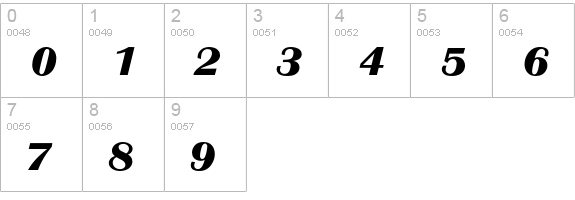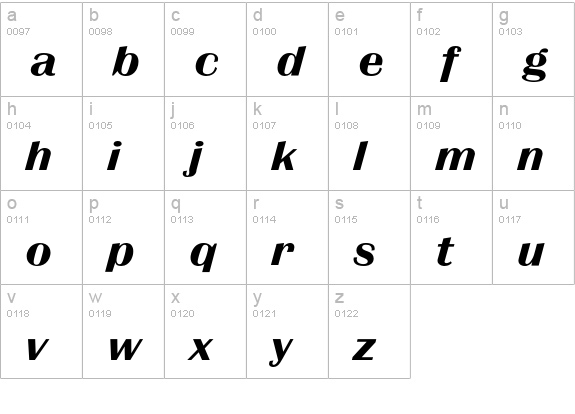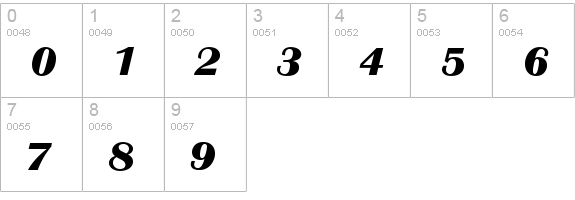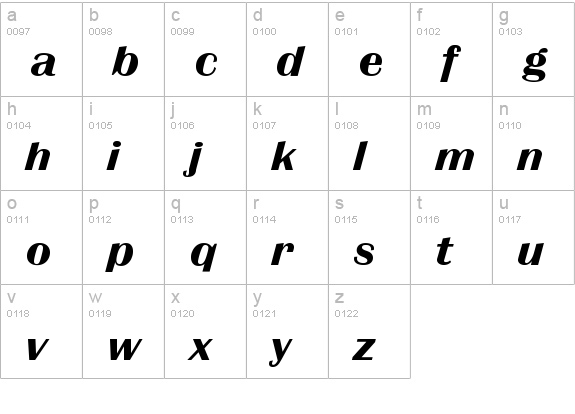
Britannic Bold Italic is a strong, high-contrast, italic variant in the Britannic typeface family \xE2\x80\x94 well suited to headlines, attention-grabbing titles, and strong calls-to-action.
Britannic Bold Italic is a striking and versatile font that exudes confidence and elegance. With its bold weight and stylish italic slant, this typeface is perfect for making a bold statement in any design project. Whether you are creating a modern logo, designing eye-catching posters, or crafting sleek branding materials, Britannic Bold Italic is sure to grab attention and leave a lasting impression. What's even better is that Britannic Bold Italic is available for free download at FontsMarket.com. Now, you can easily access this premium font without any cost, making it a valuable addition to your font collection. Don't miss out on the opportunity to elevate your designs with the timeless appeal of Britannic Bold Italic - download it today and let your creativity shine!